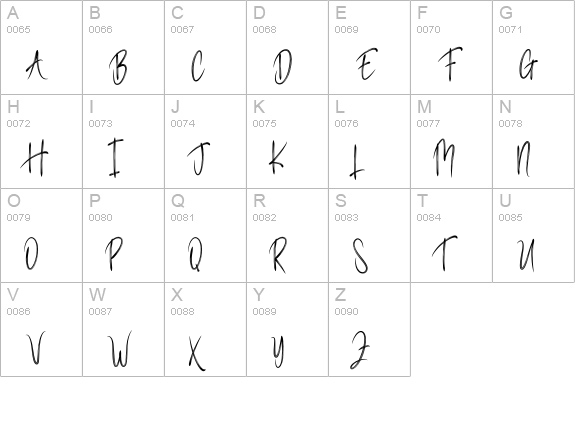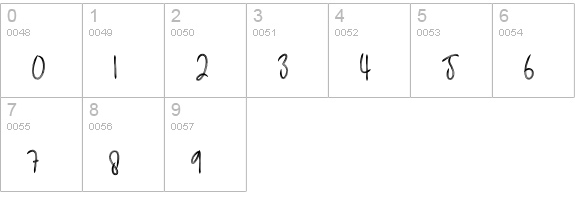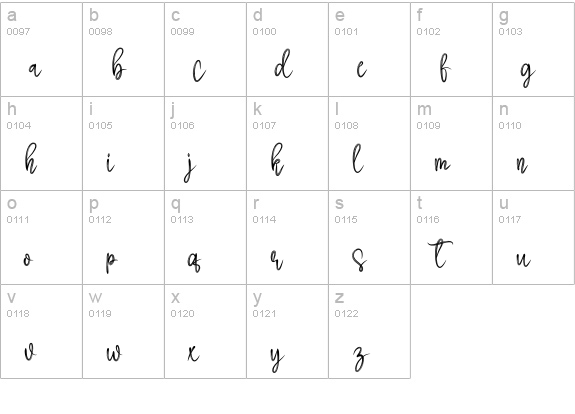
Back To School Font Details
Back To School is a free for personal use font in the Script > Handwritten category, designed by scratchones. It has been downloaded 18 times and is available for Windows, Mac and Linux.
Introducing the charming and playful Back To School font, perfect for bringing a touch of nostalgia and whimsy to your design projects. This delightful font captures the essence of youthful energy and creativity, making it ideal for back-to-school themes, children's books, or any project that calls for a fun and friendly typeface.
The Back To School font features a unique hand-drawn style with a modern twist, combining classic elements with a contemporary flair. Its bold and eye-catching letterforms are sure to make your text stand out and leave a lasting impression.